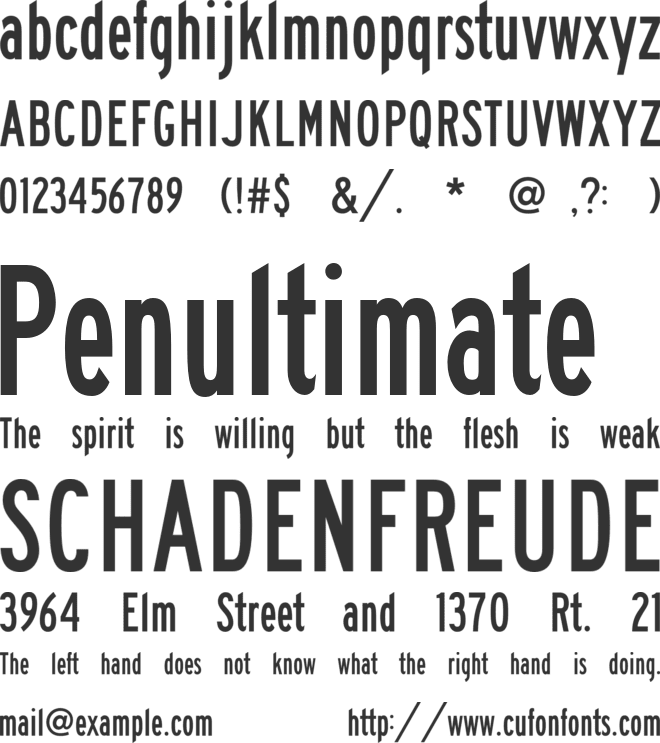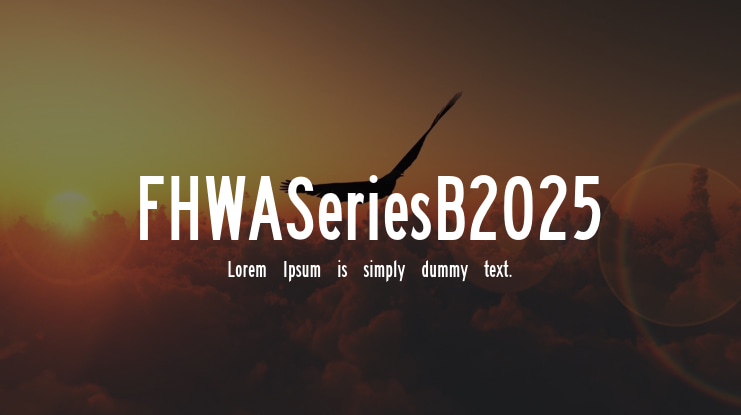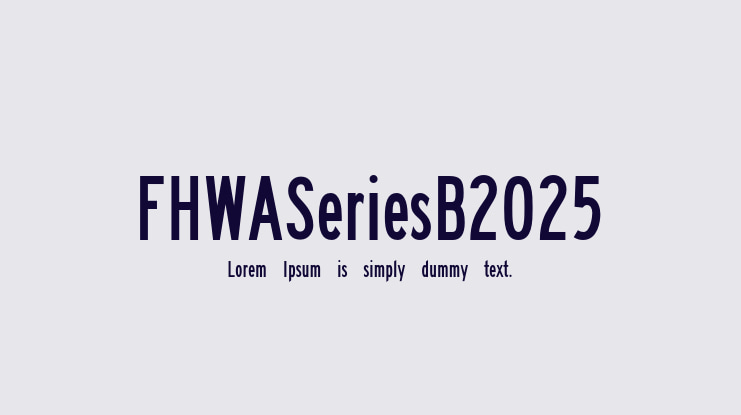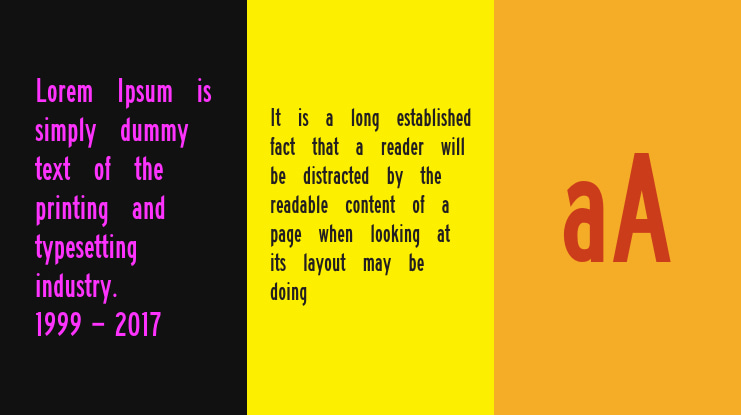
FHWASeriesB2025 Font Family
(Renamed from FHWA Series B 2024 due to an upload issue) Suitable for the creation of official road, street, and highway signage in the US. Public domain outlines from the Federal Highway Administration. Includes recent updates to Β’, $, -, +, and :